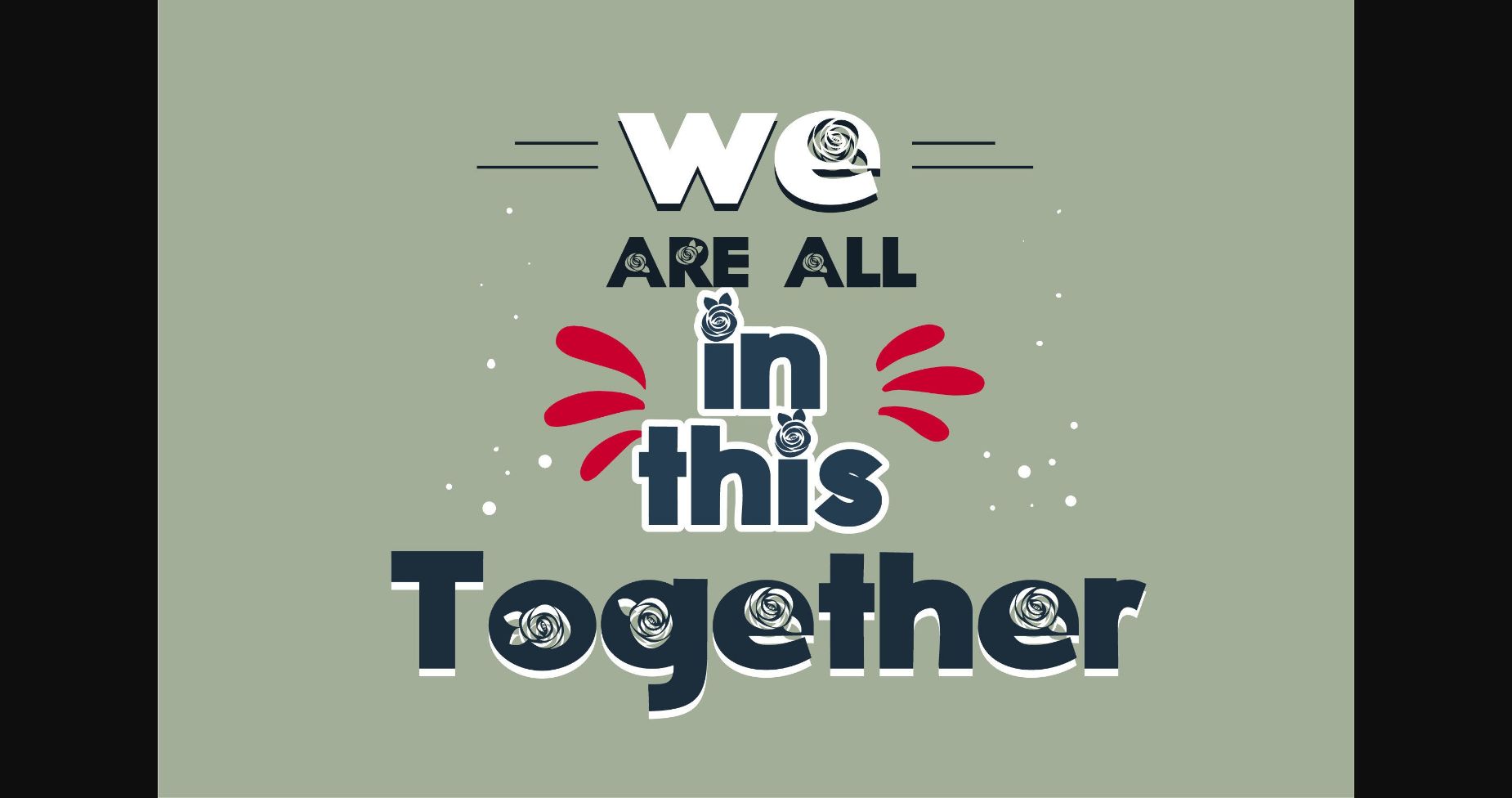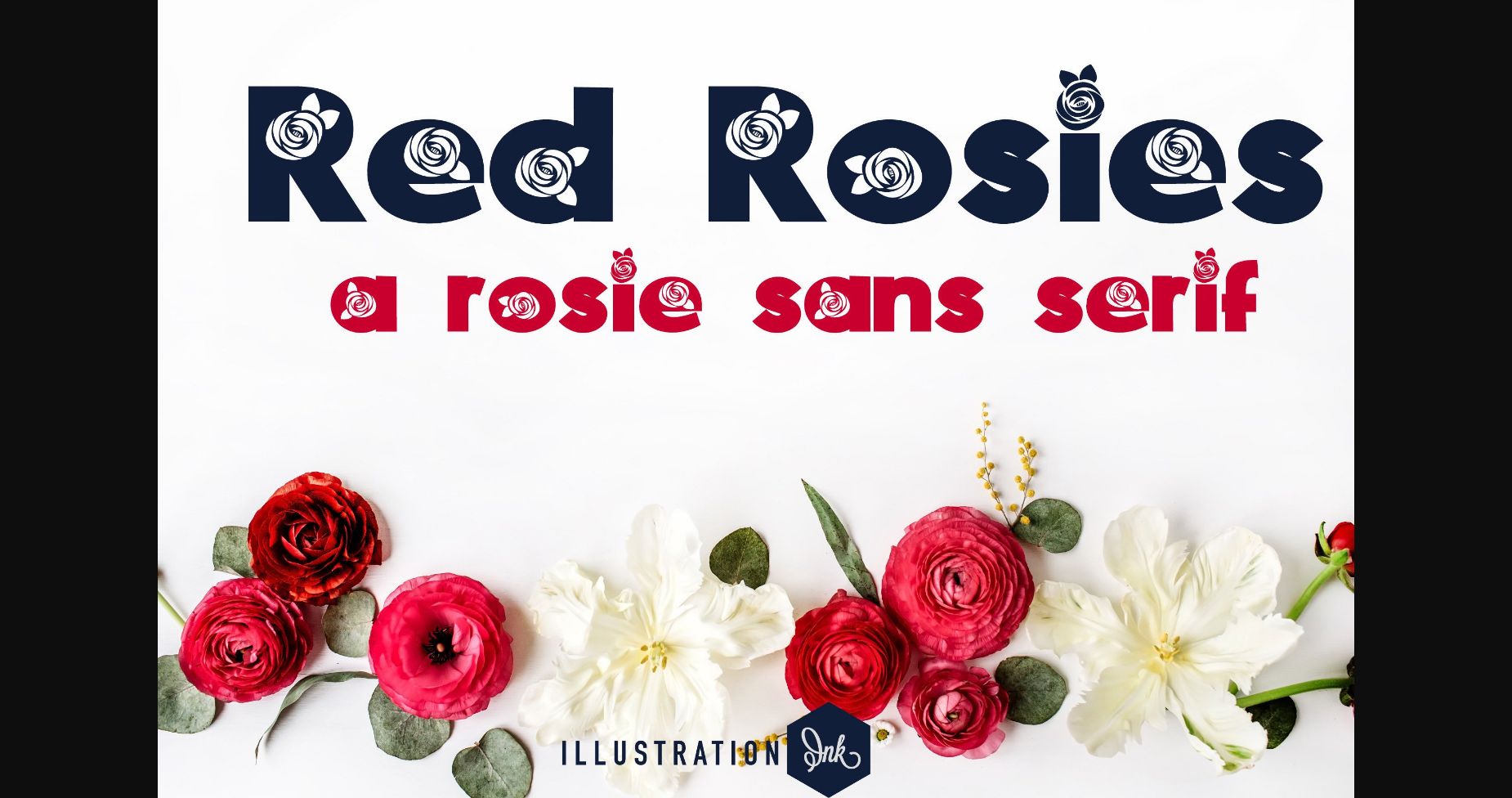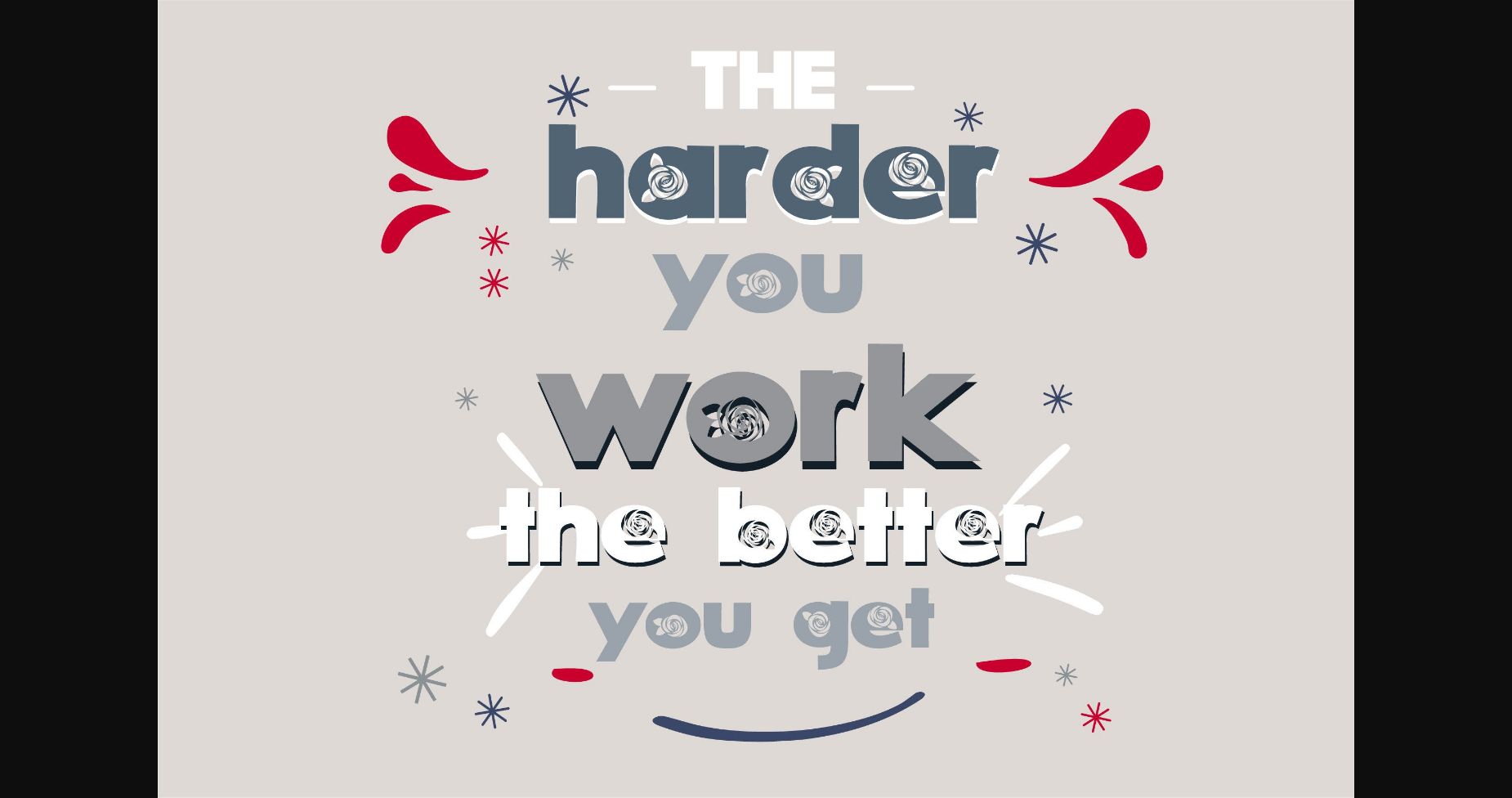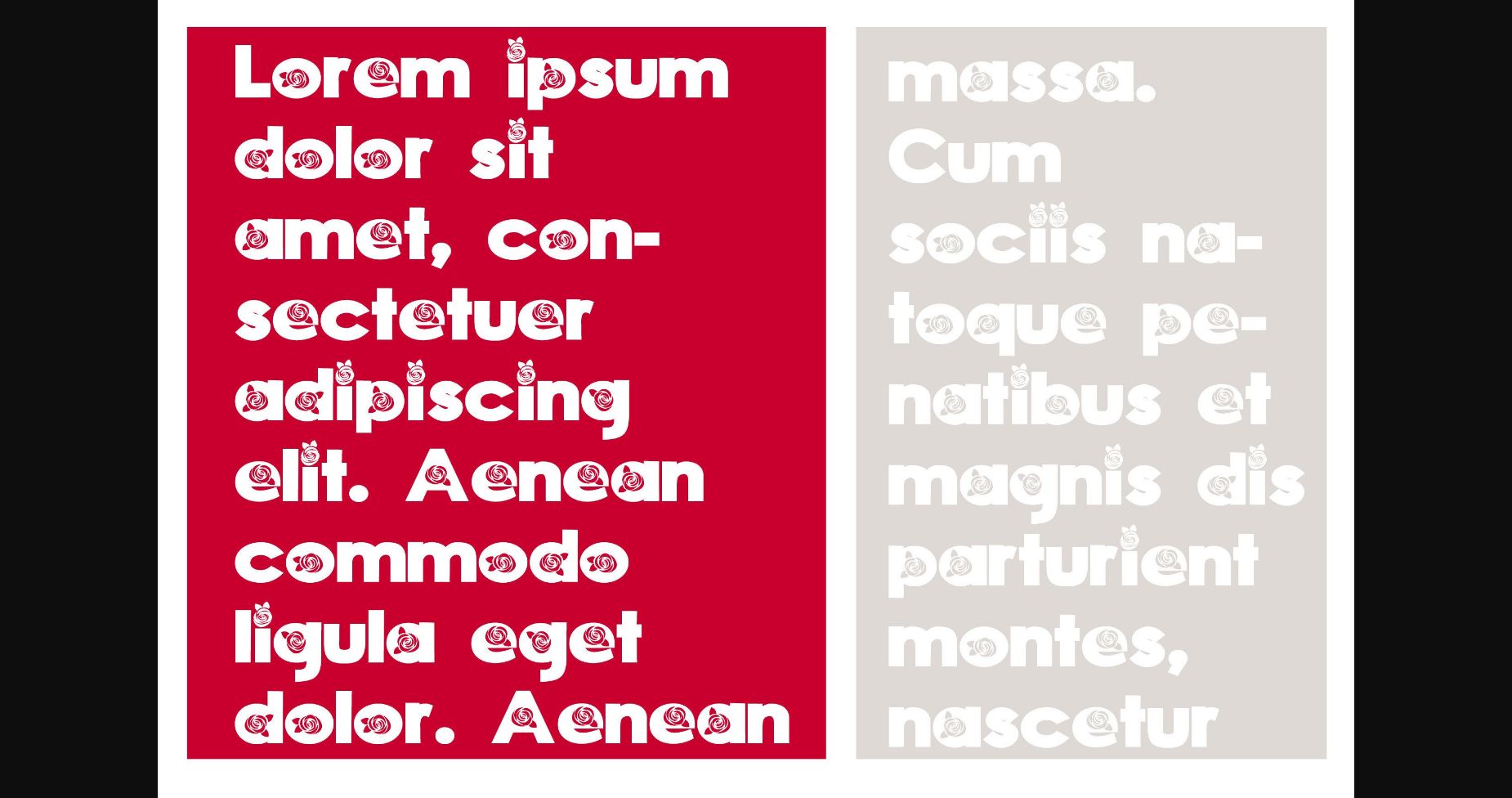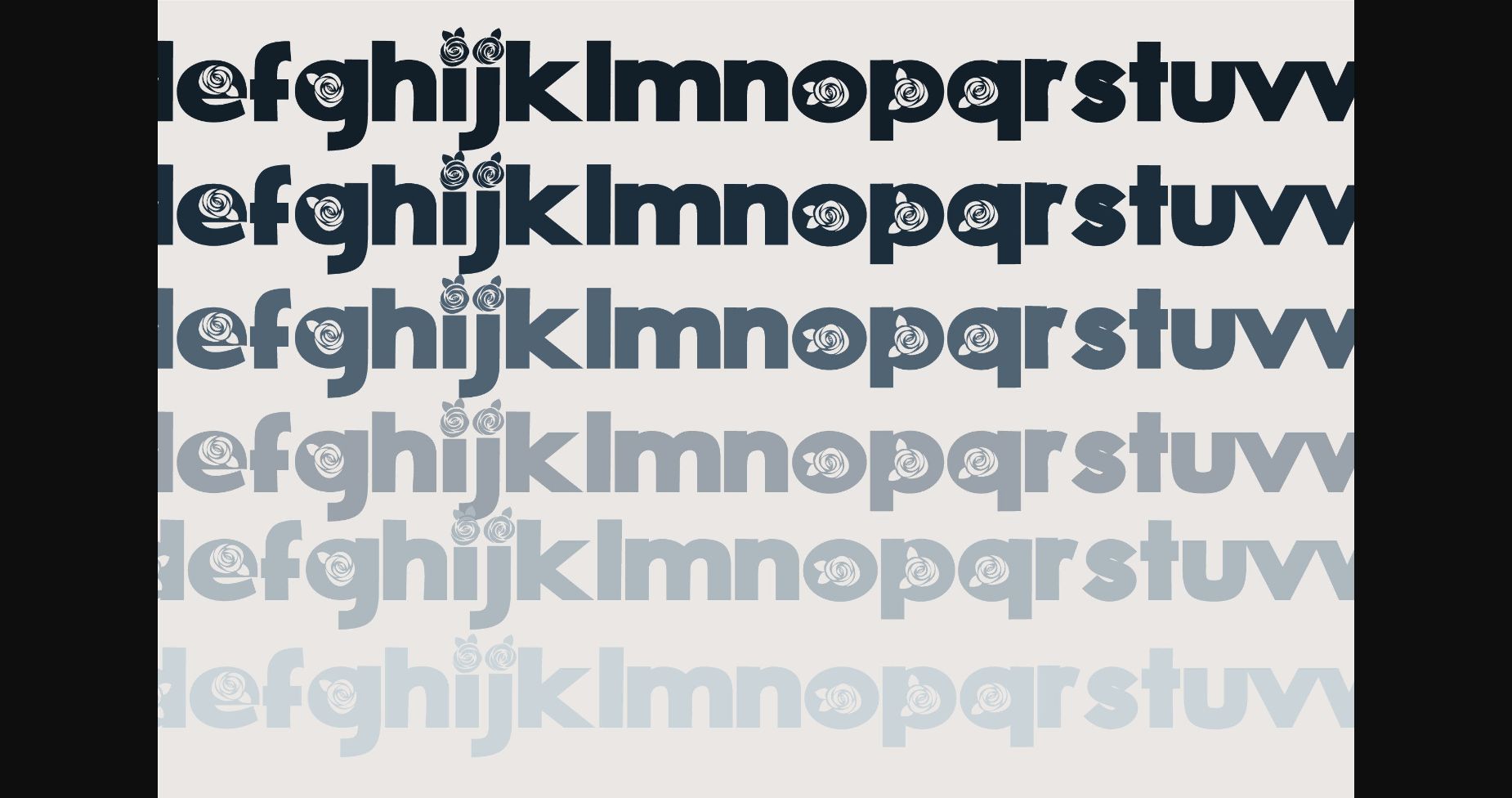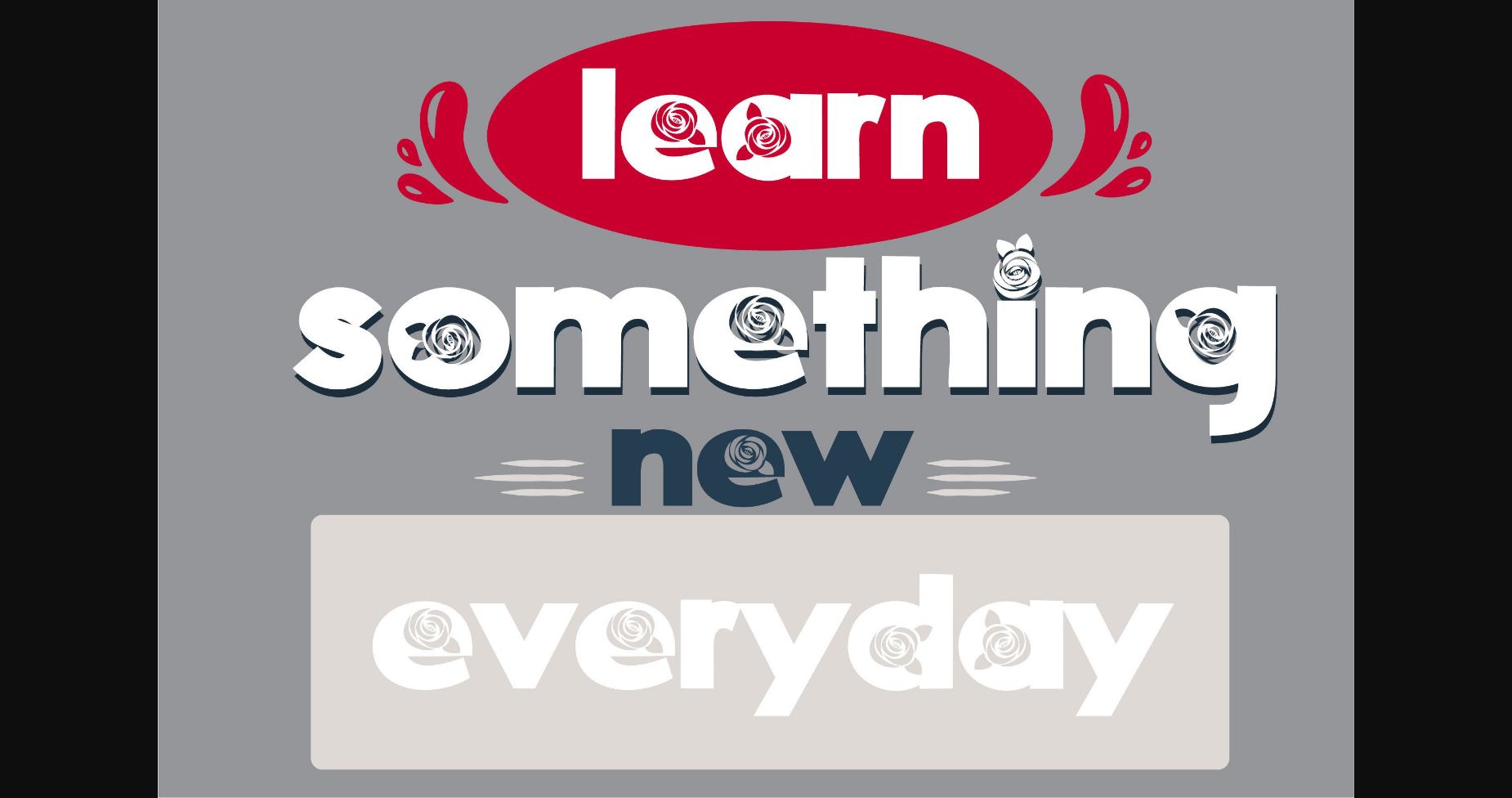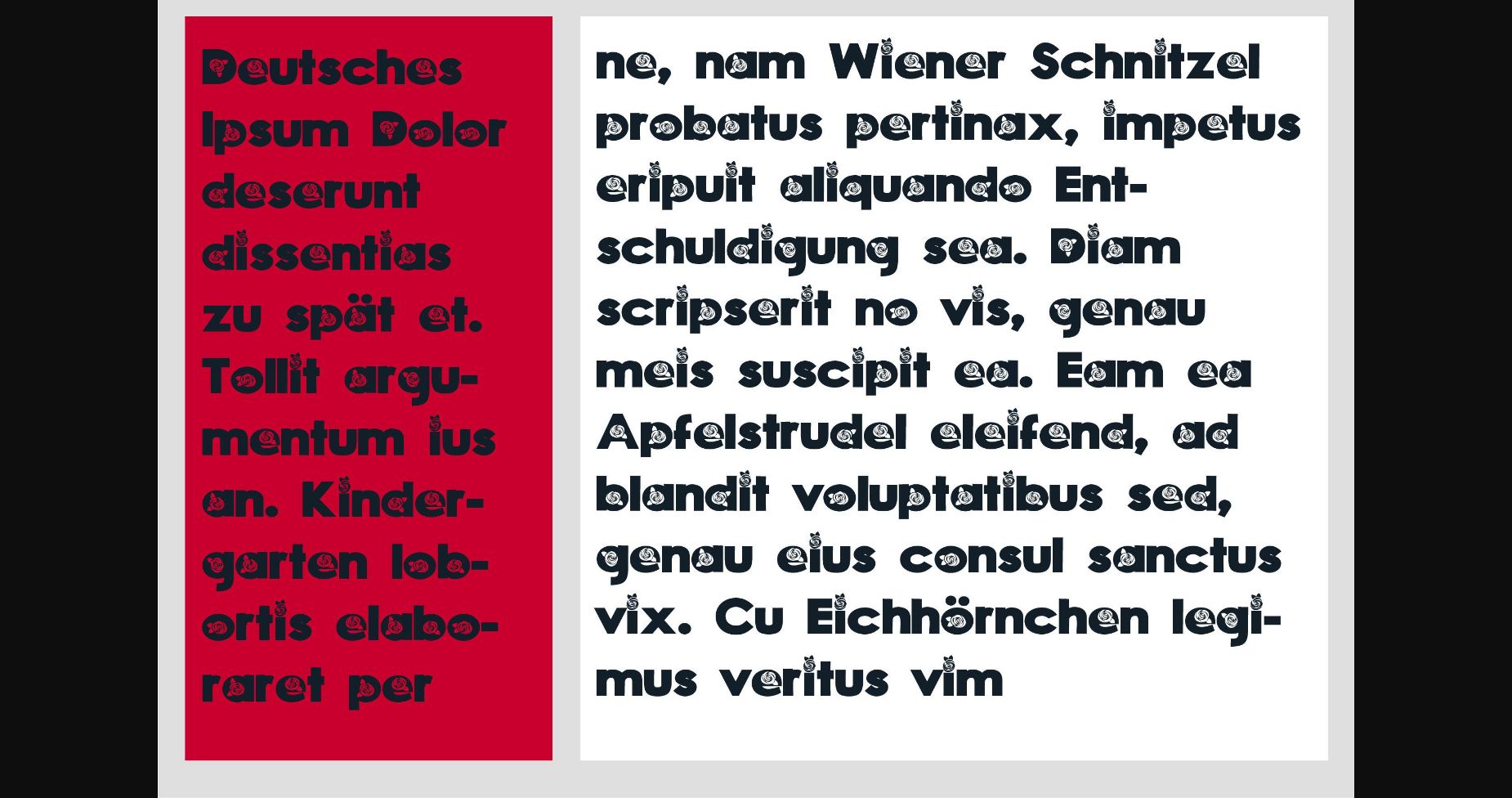
Red Rosies Font
About Red Rosies Font
Red Rosies is a whimsical sans serif font with rosy silhouettes throughout. A little bit quirky, this font looks incredibly adept in a wide variety of contexts!